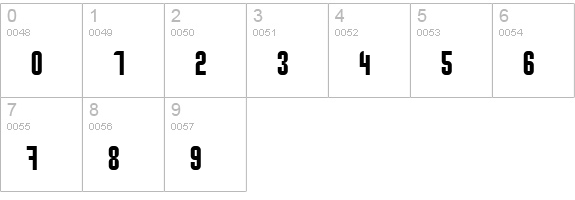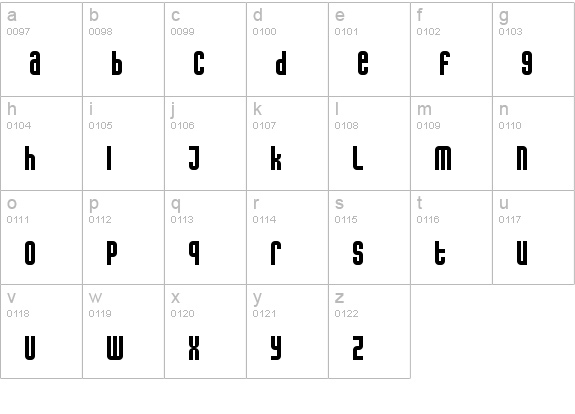
caseconected Font Details
Introducing Caseconected Font, a modern and stylish typeface that exudes elegance and sophistication. Its unique design features sleek lines and sharp angles, making it perfect for a wide range of design projects. Whether you're creating branding materials, invitations, or social media graphics, Caseconected Font will add a touch of class and sophistication to your work. The best part? Caseconected Font is available for free download at FontsMarket.com. Now you can elevate your designs without breaking the bank. Simply visit FontsMarket.com to get your hands on this versatile and eye-catching font. Don't miss out on the opportunity to enhance your projects with the timeless beauty of Caseconected Font. Download it today and let your creativity shine!